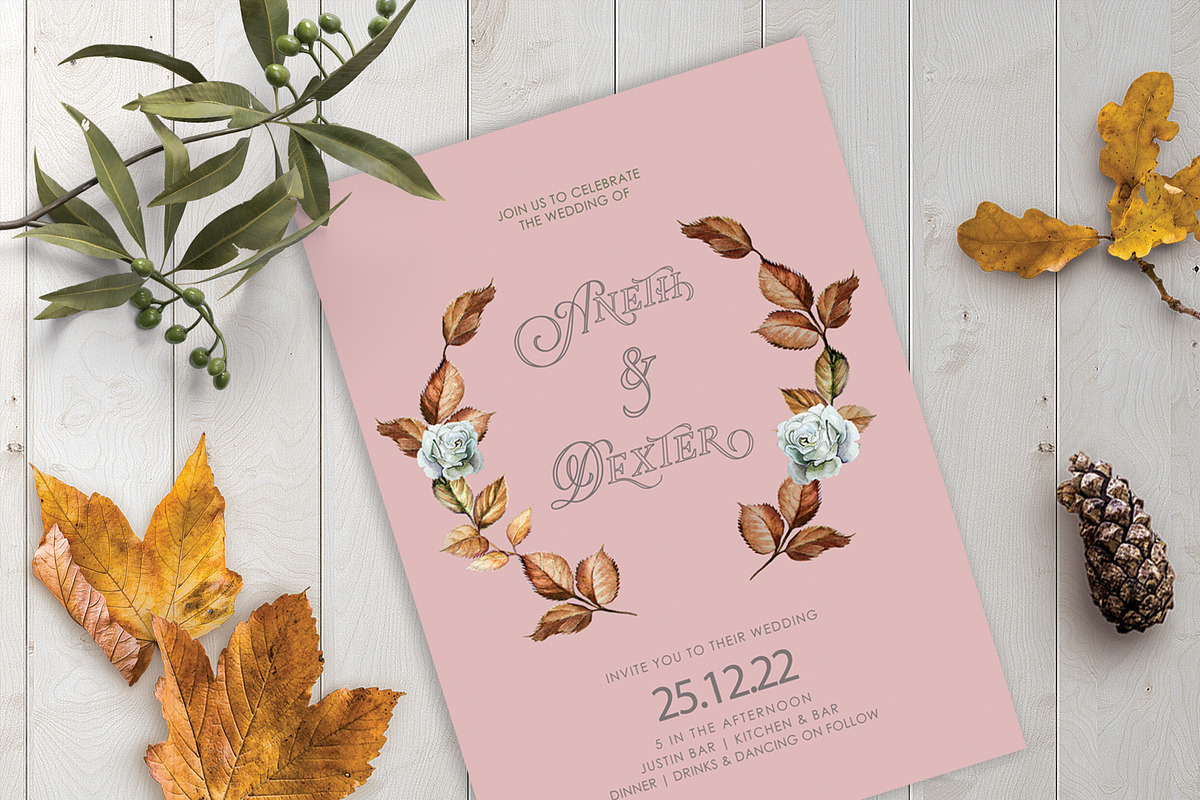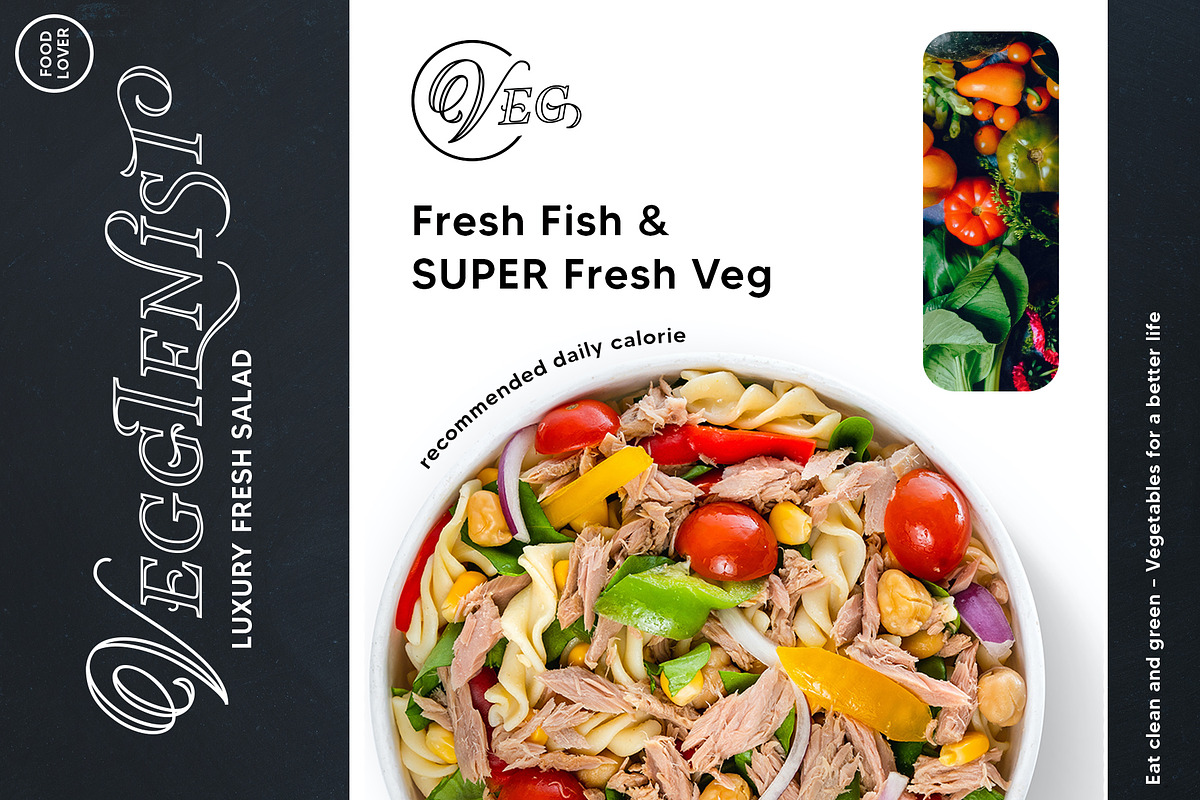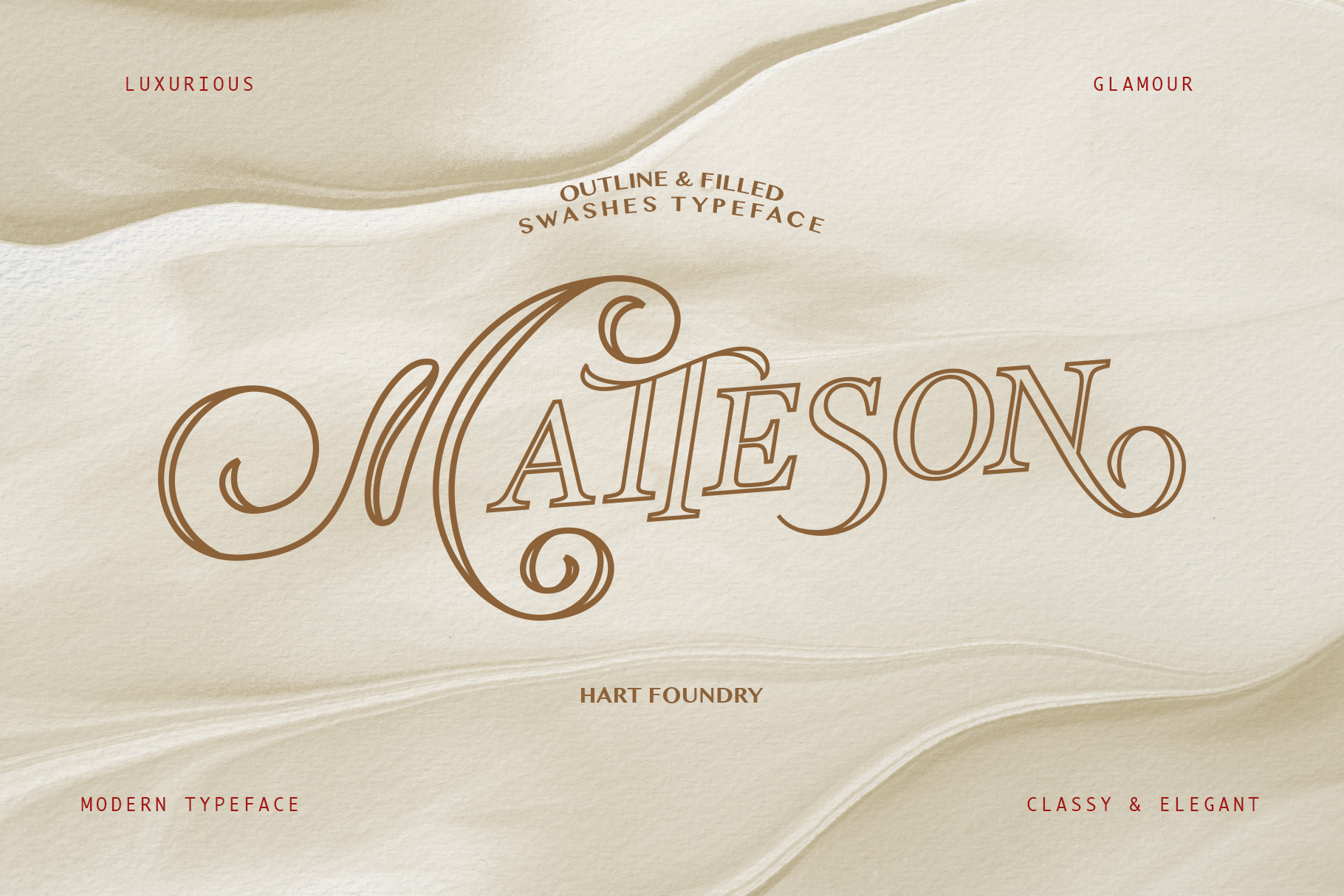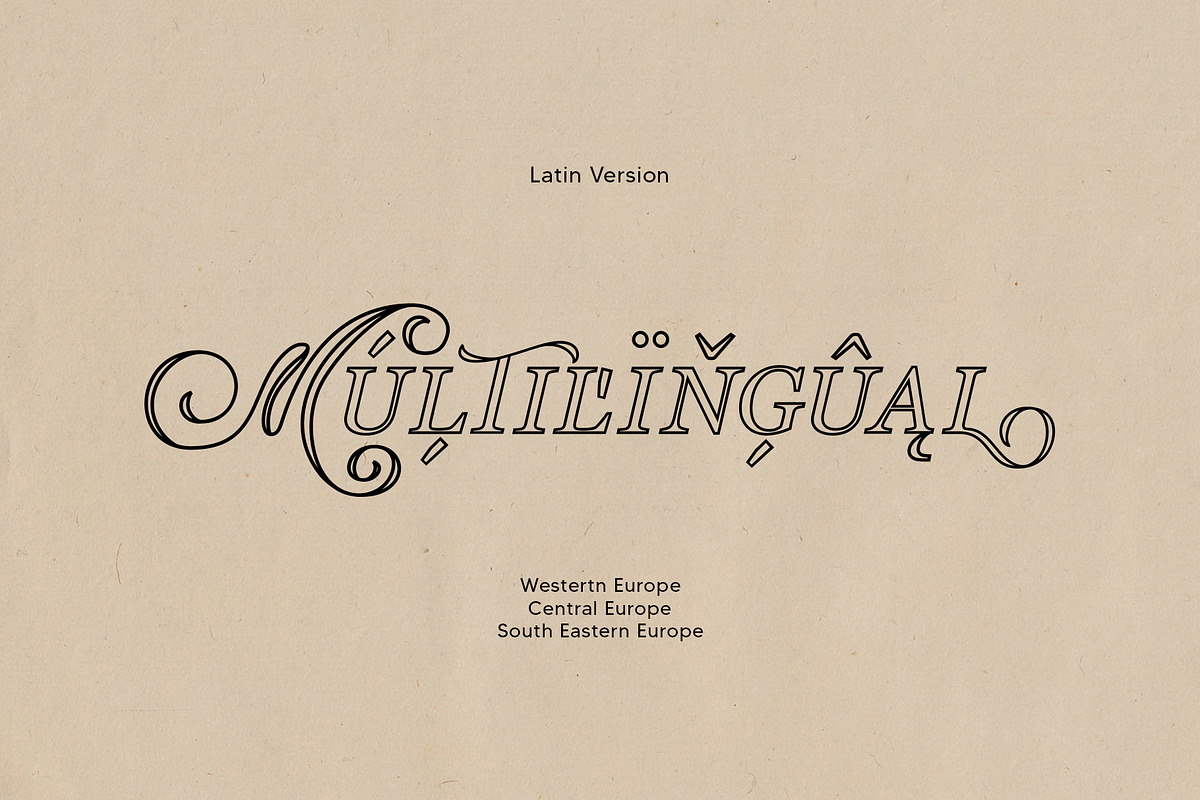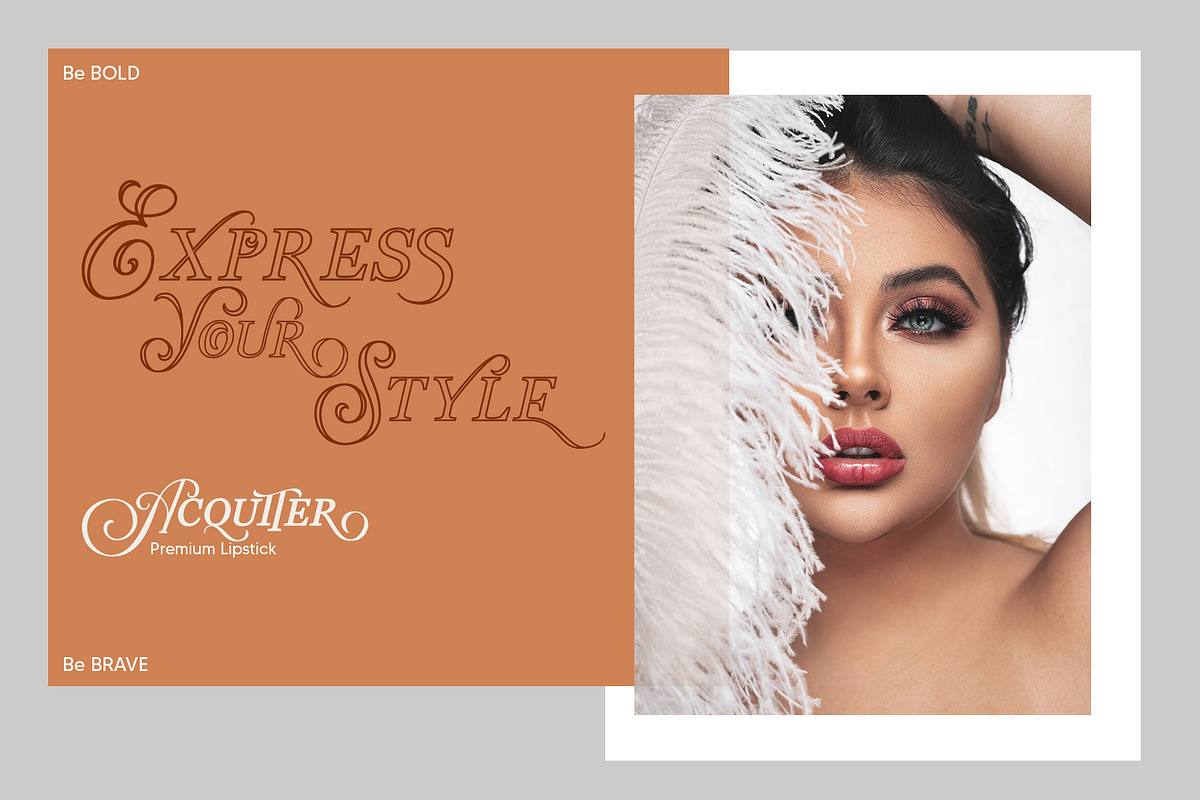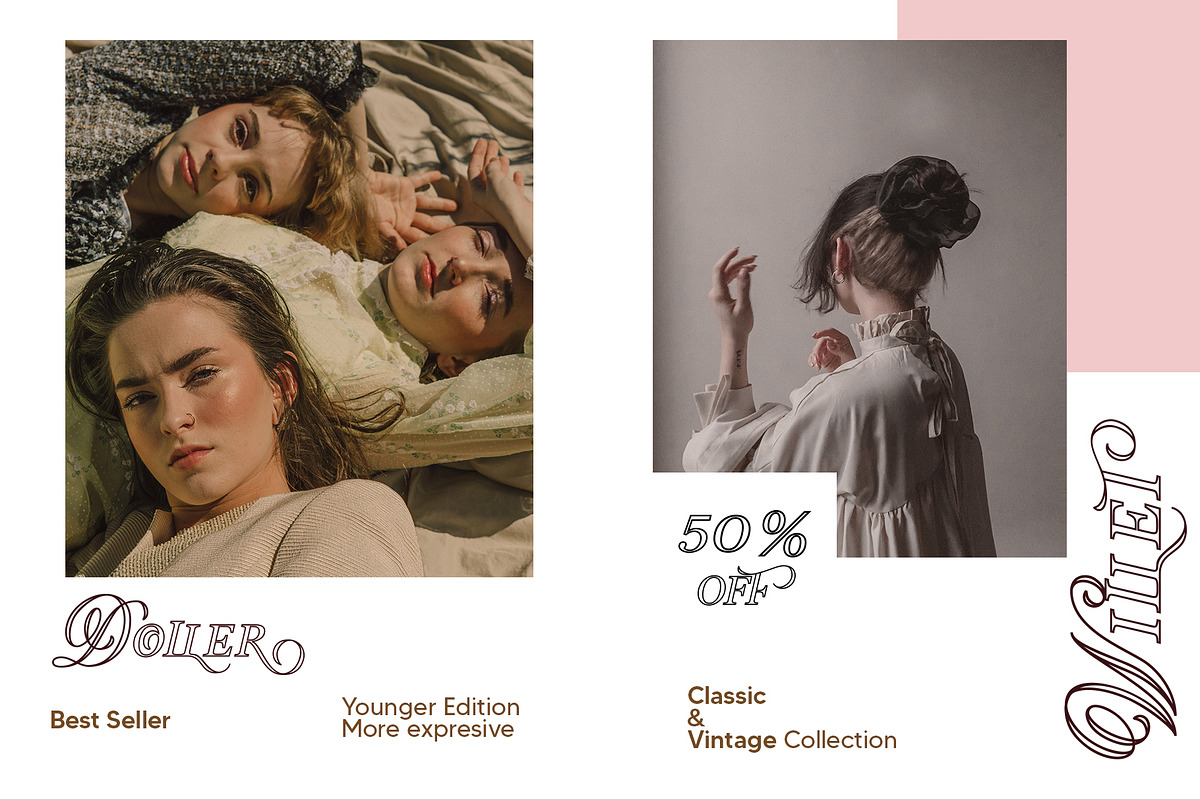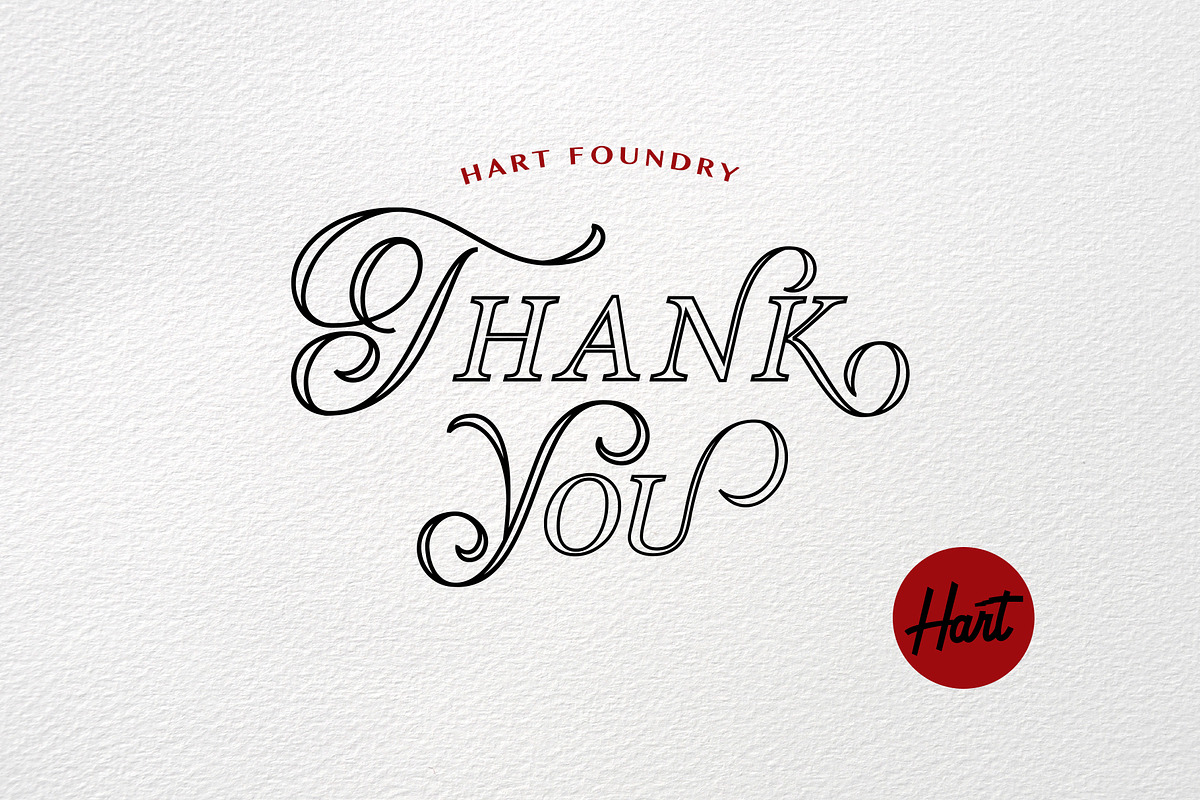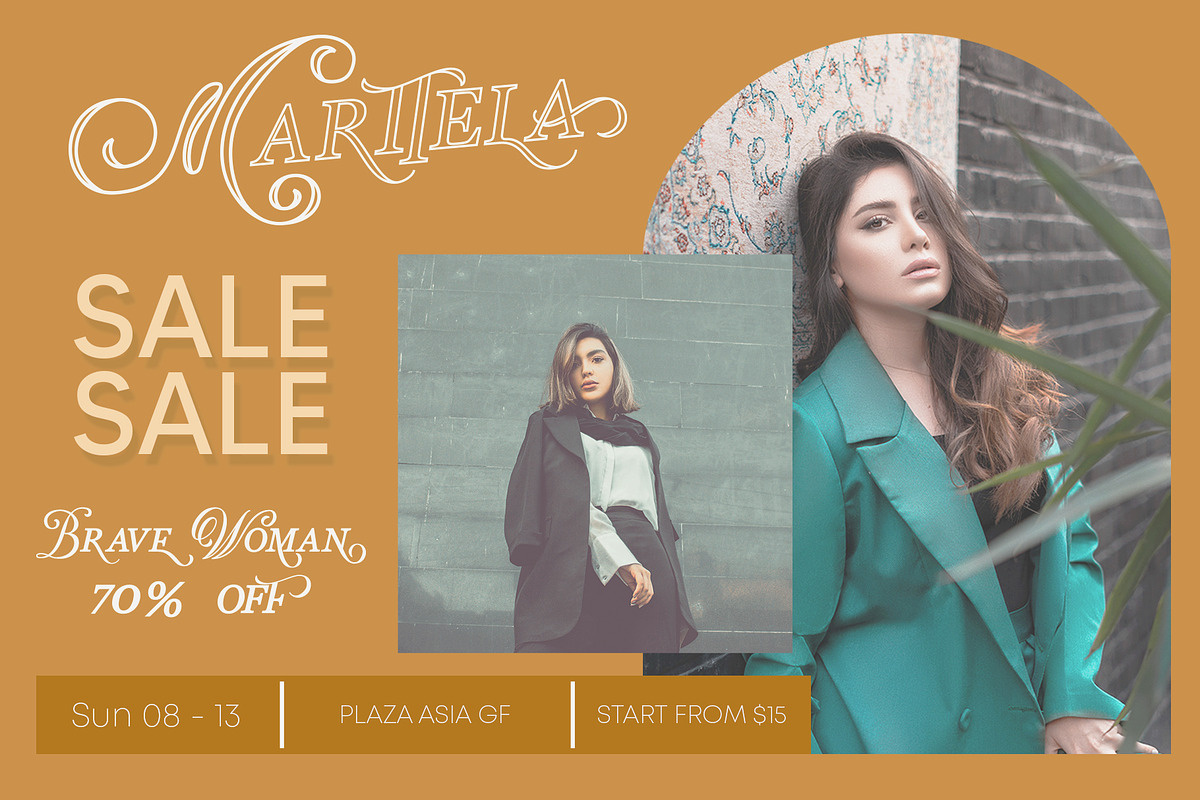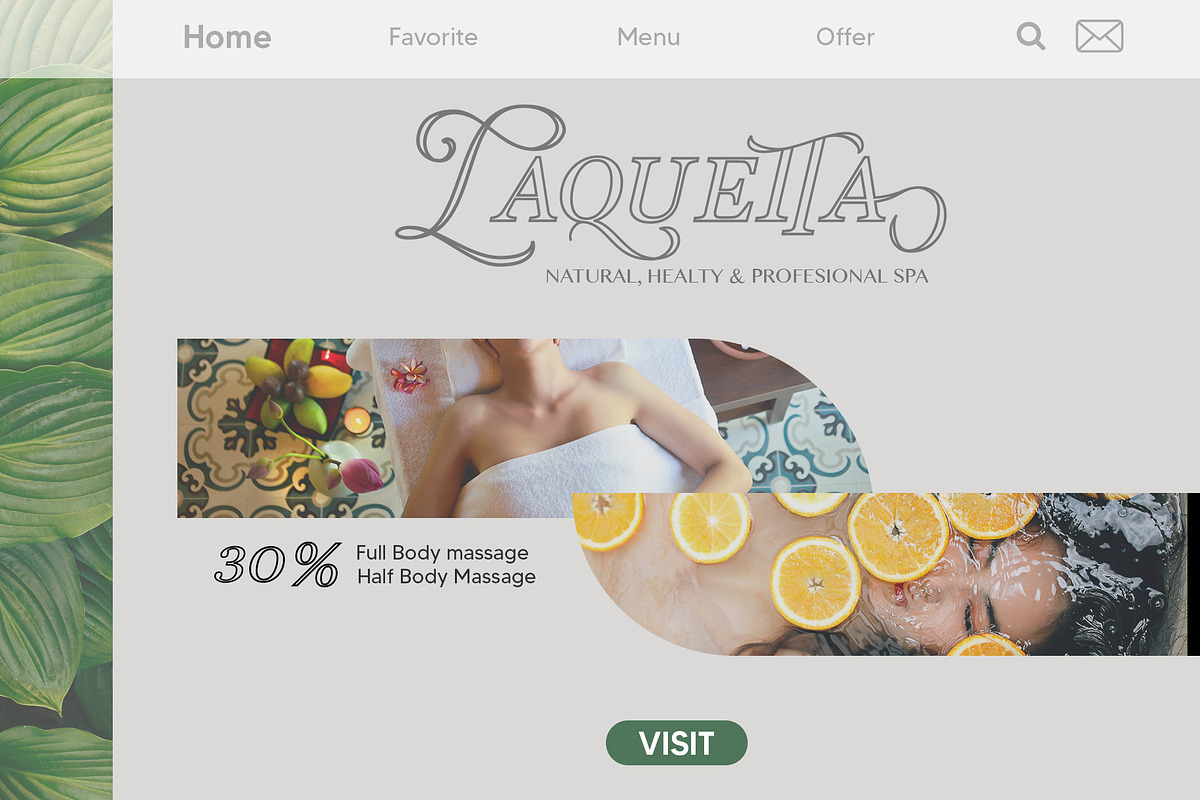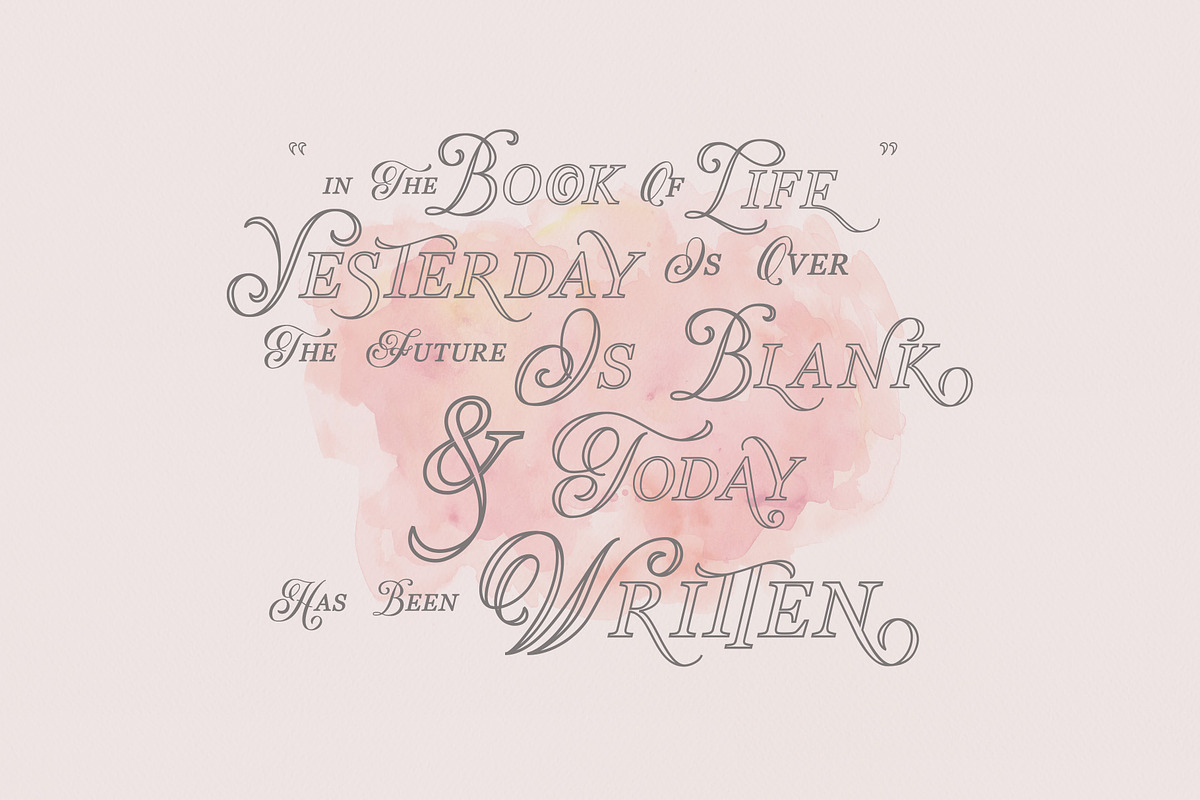
Matteson Fonts
Matteson Fonts is an enchanting serif font. This stylish and versatile typeface has a wide spectrum of applications ranging from greeting cards to headlines and is guaranteed to add a romantic feel to your next project. This Fonts are made carefully with many options in alternate and ligatures, so you can mix and match for your design. To use the alternate and ligatures you need the application that support Opentype features